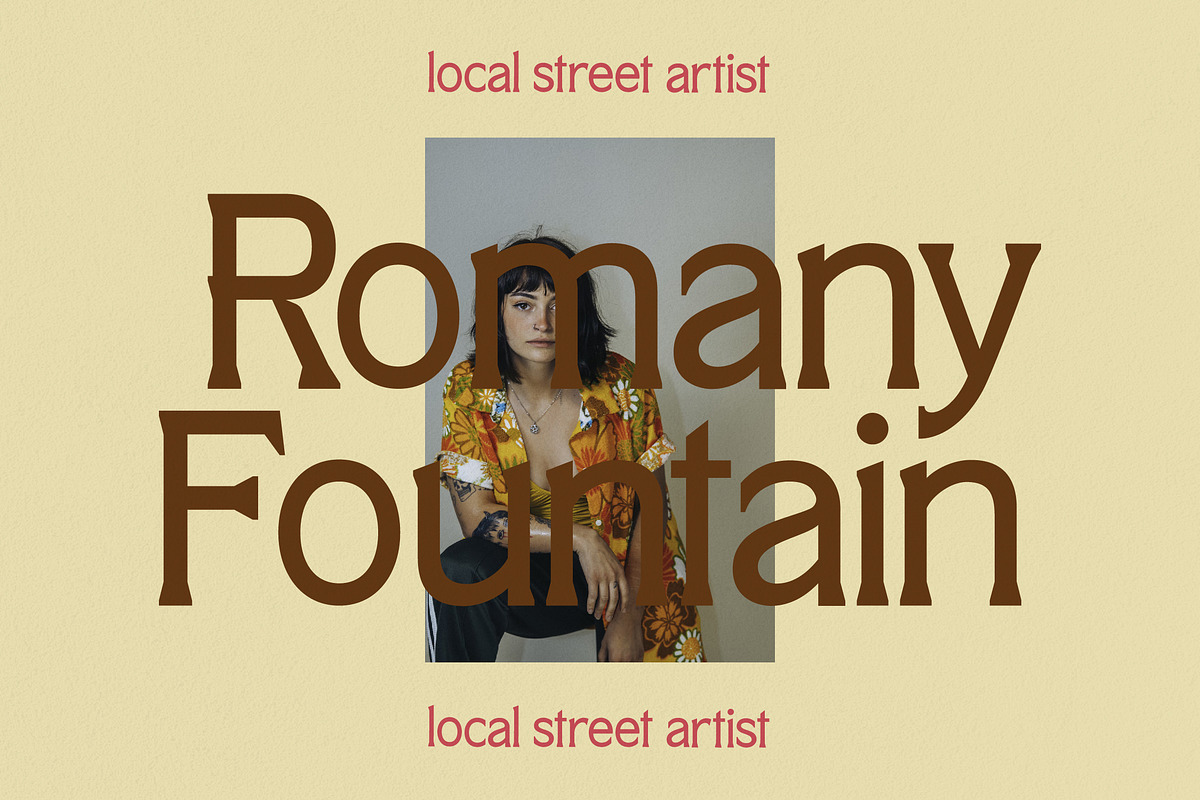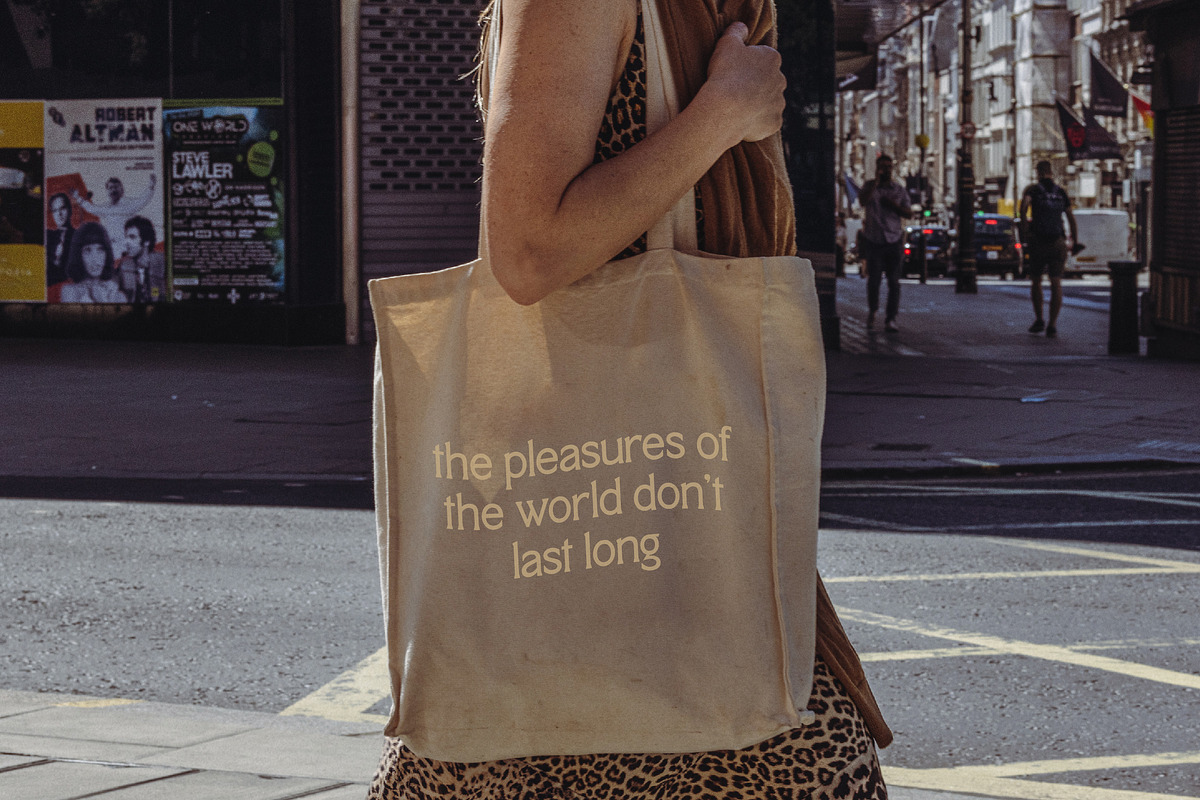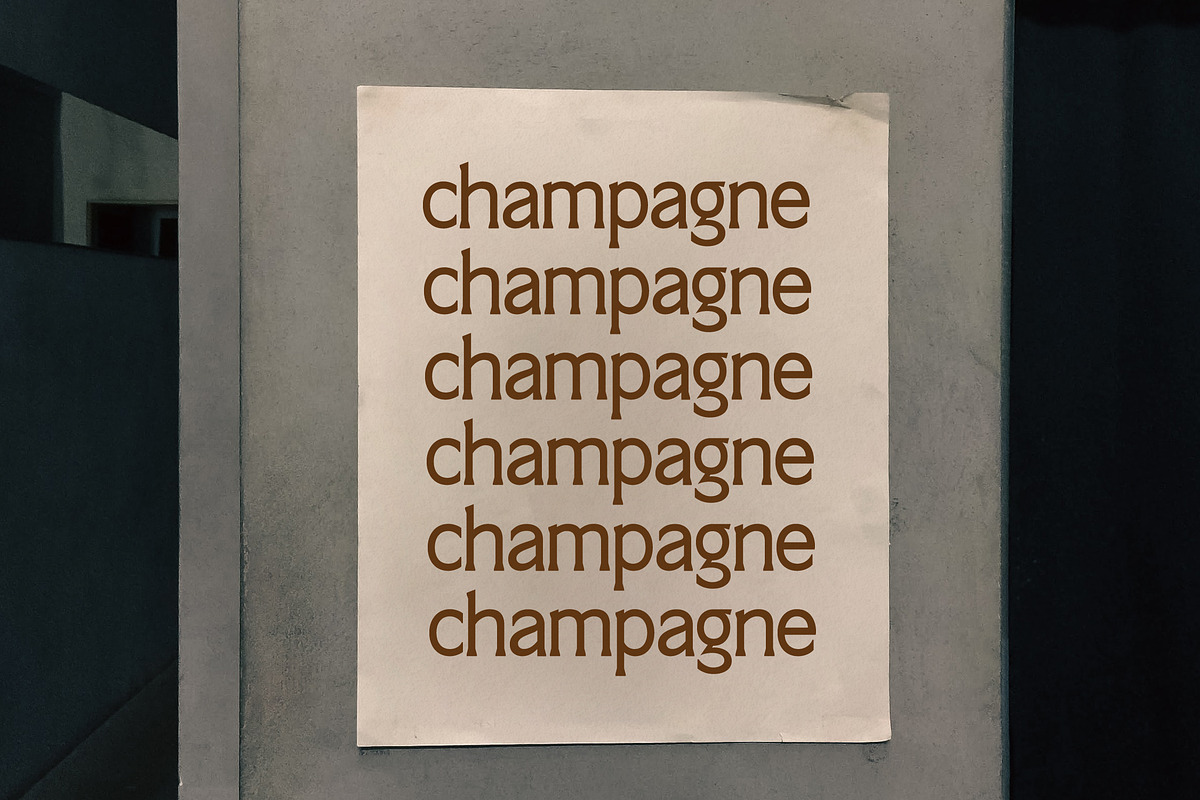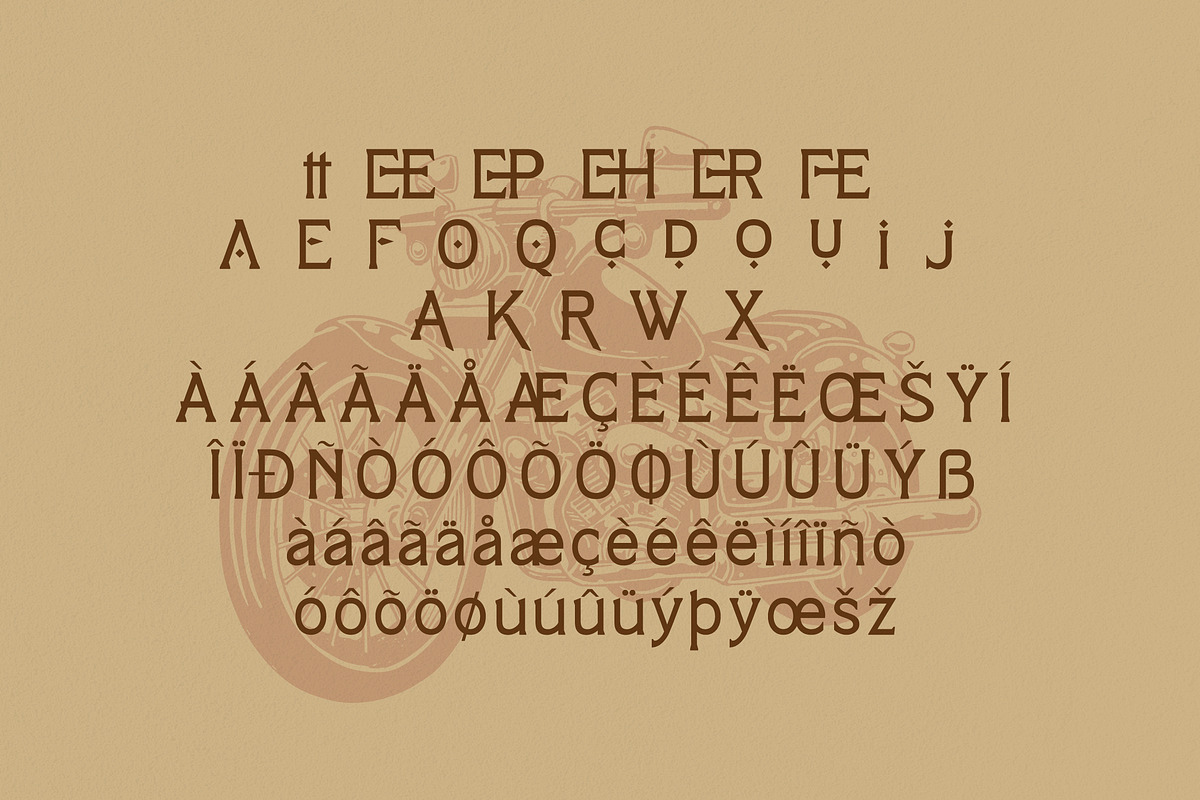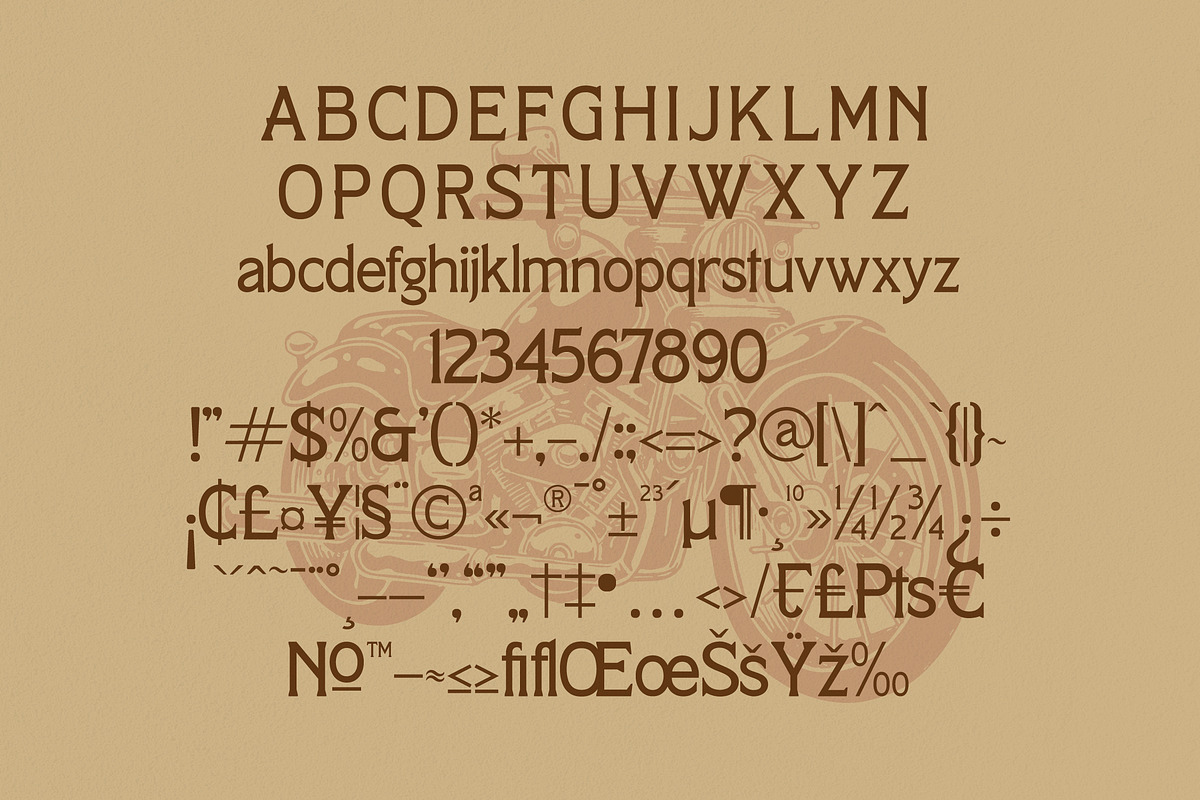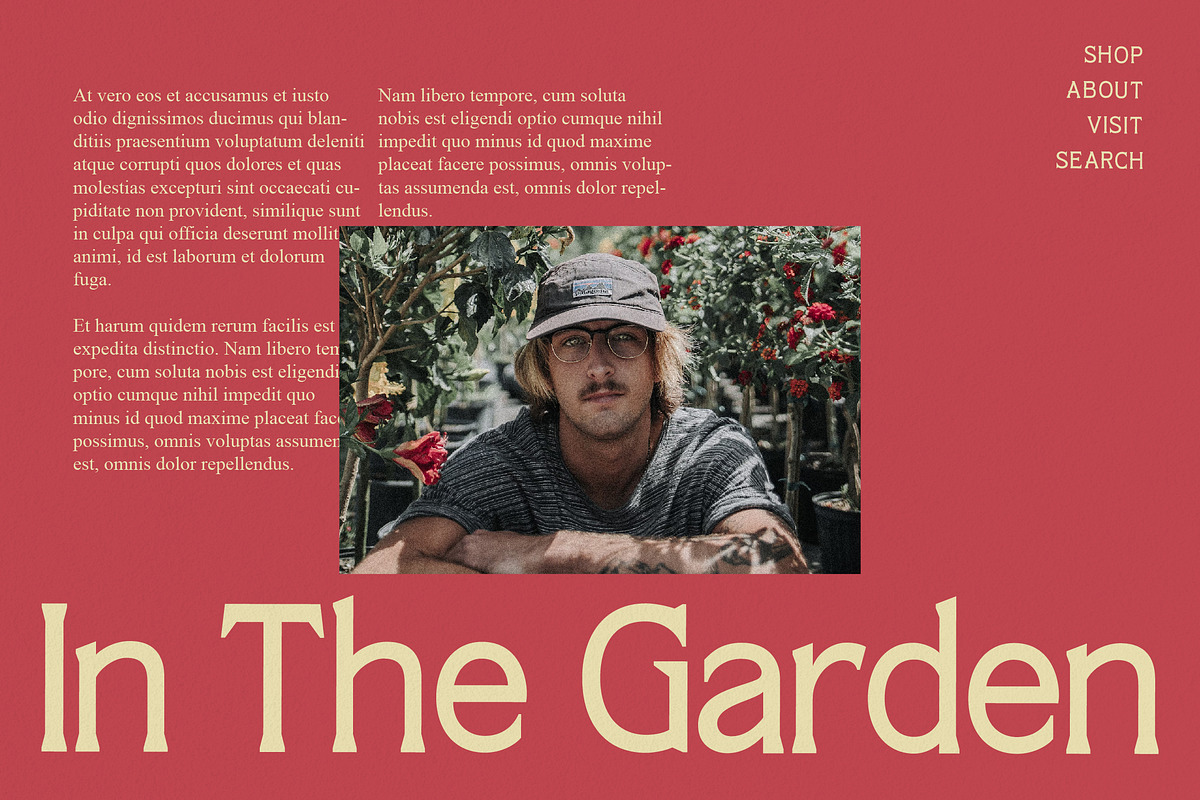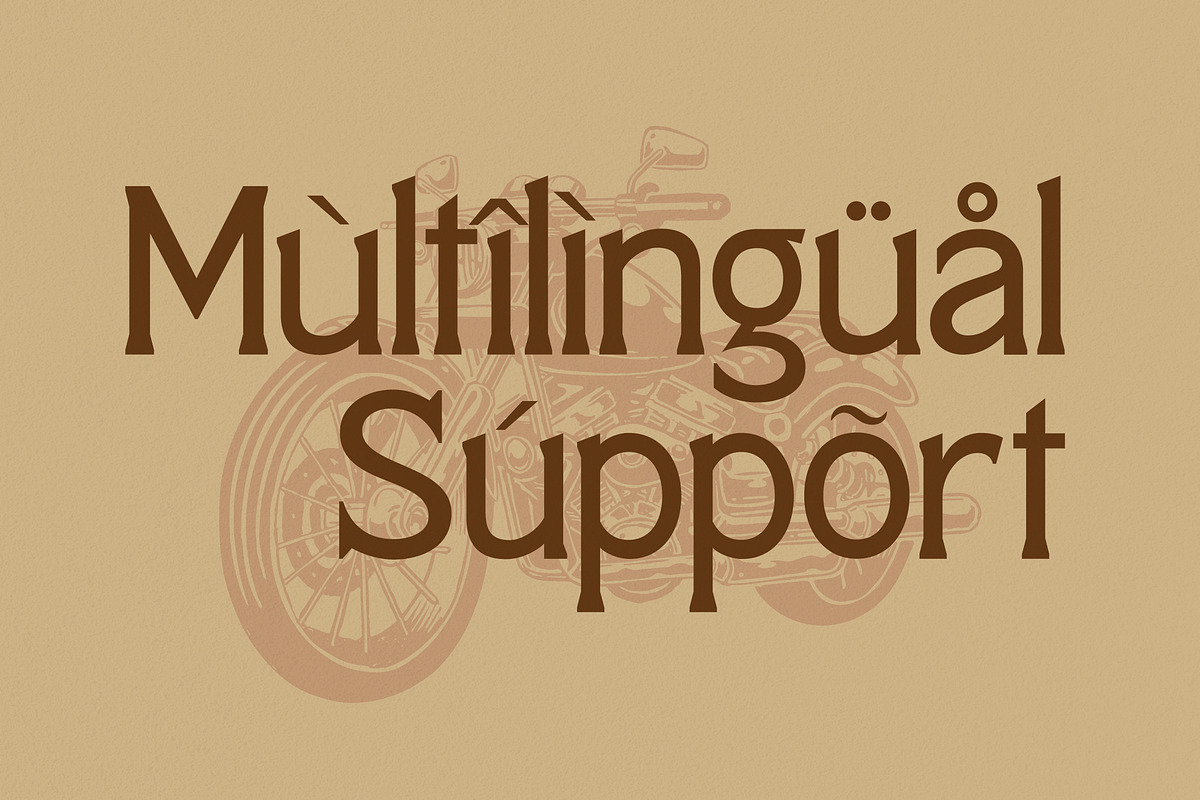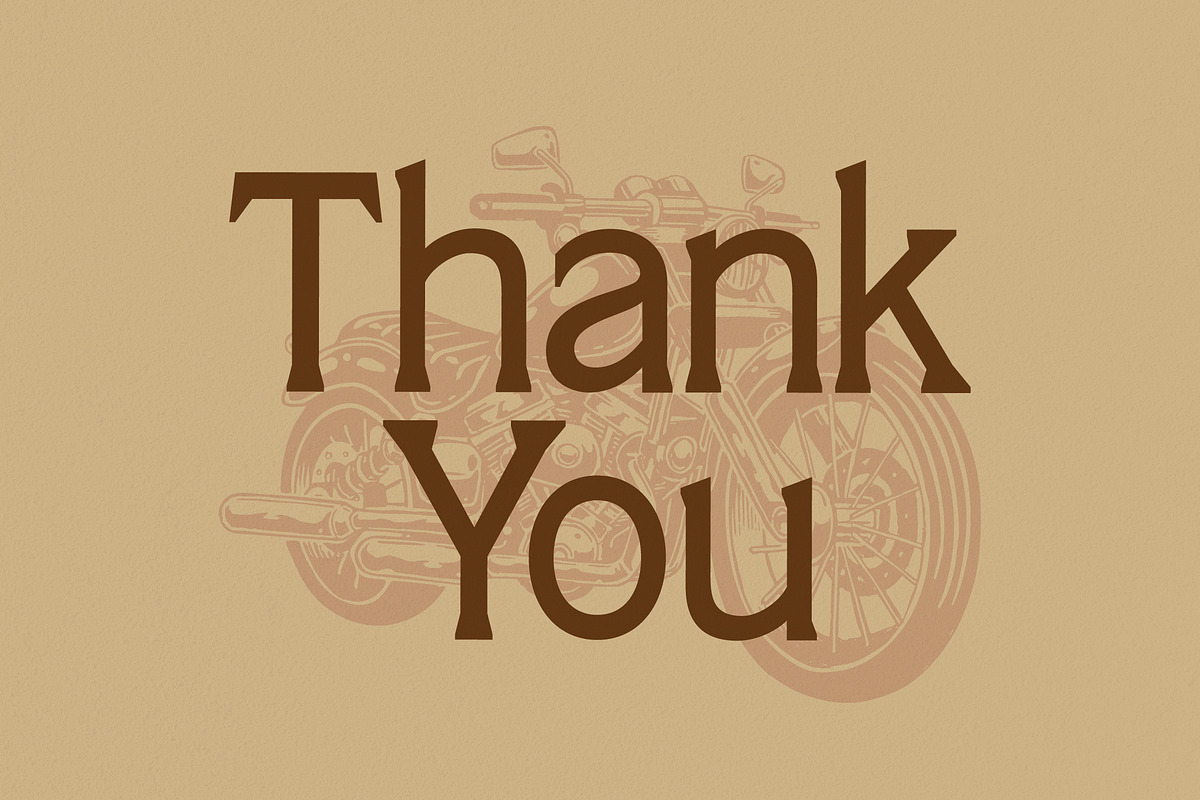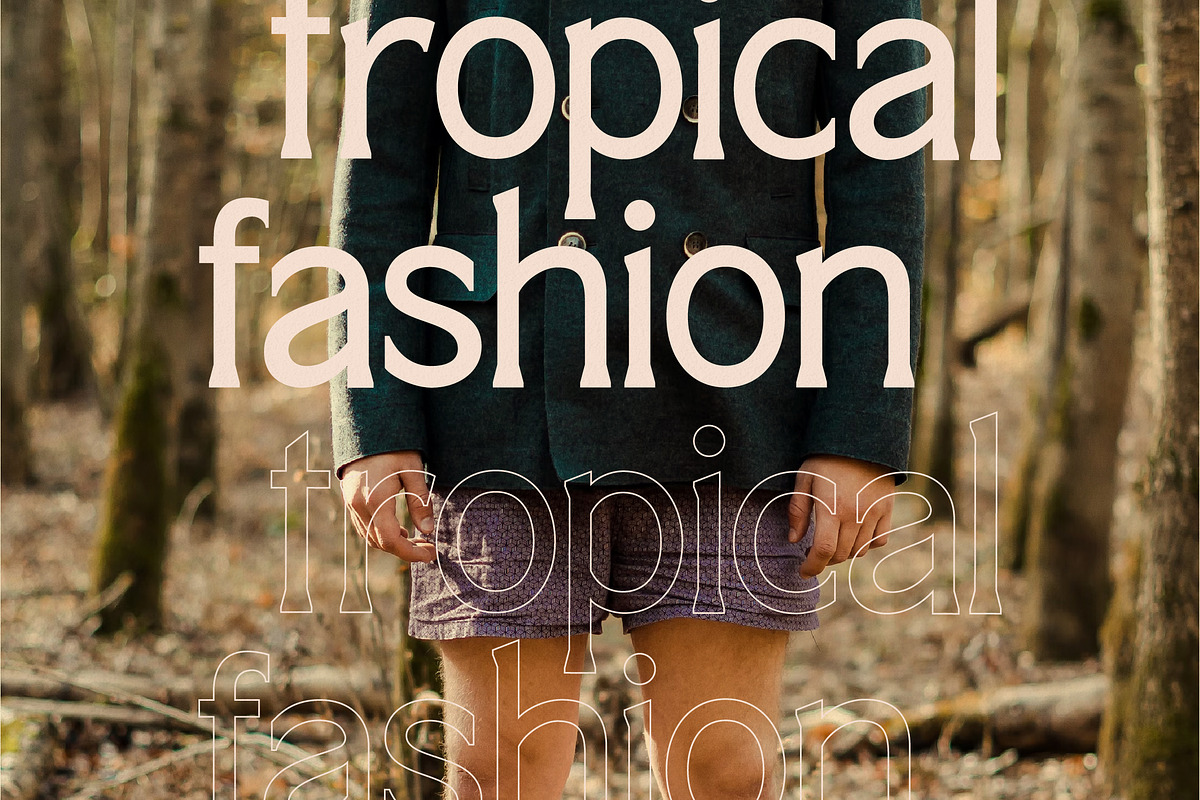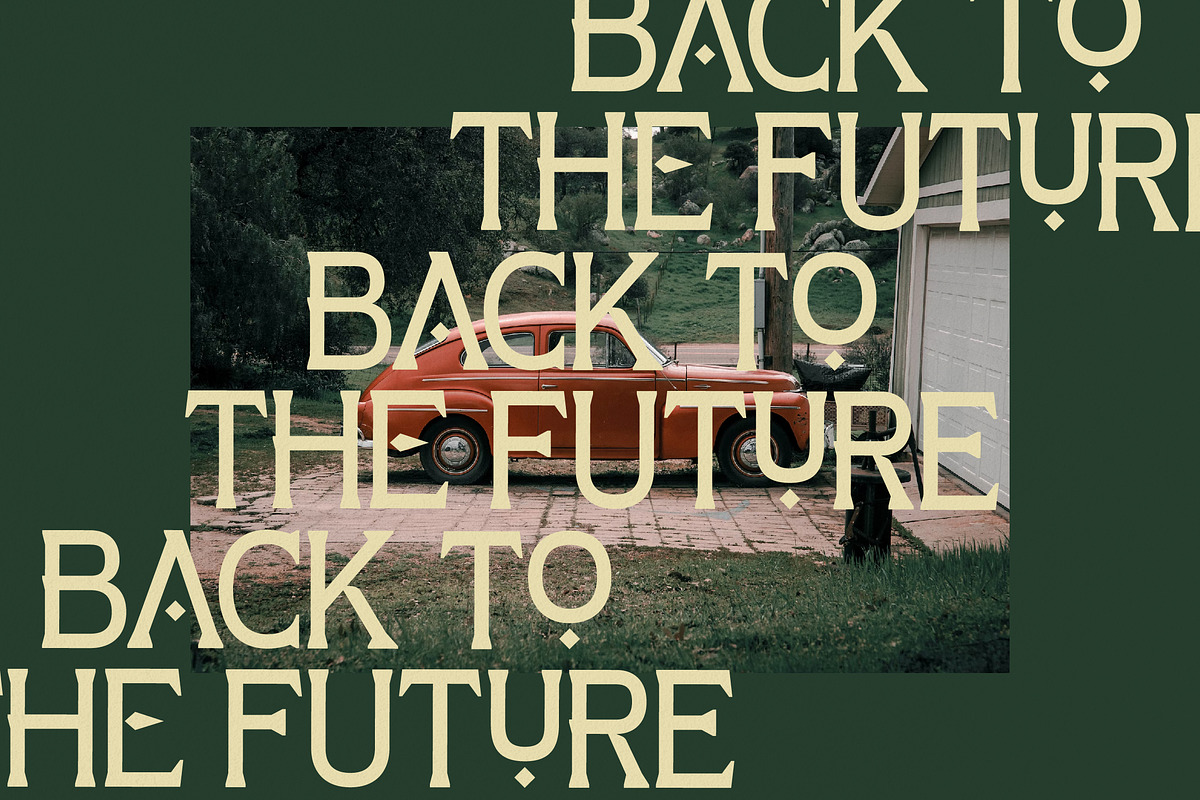
Raider Knight Serif Display Typeface
Proudly present Raider Knight Typeface , created by Storytype, A serif modern and classic typeface that has own unique style & modern look. This typeface is perfect for an elegant & luxury logo, book or movie title design, fashion brand, magazine, clothes, lettering, quotes, and so much more.